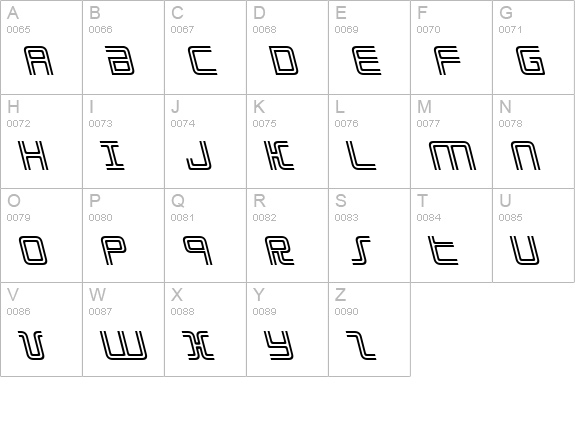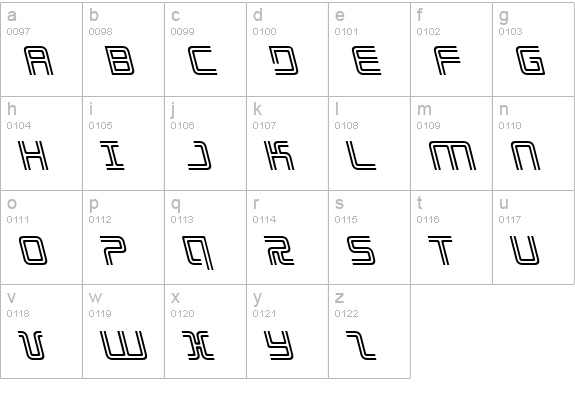
Election Day Leftalic font is a dynamic and eye-catching typeface that exudes a sense of urgency and modernity. With its slanted, italicized design, this font is perfect for adding a bold and stylish touch to your projects. Whether you are creating posters, flyers, or social media graphics for Election Day events, this font will surely make a statement. Featuring clean lines and sharp angles, Election Day Leftalic font commands attention and is sure to leave a lasting impression on your audience. Its versatility allows it to be used in a variety of design projects, from political campaigns to promotional materials. Best of all, Election Day Leftalic font is freely available to download at FontsMarket.com. So go ahead and grab this powerful and impactful font today to elevate your design projects to the next level!